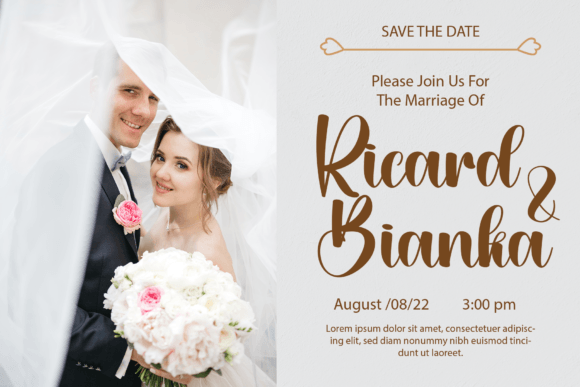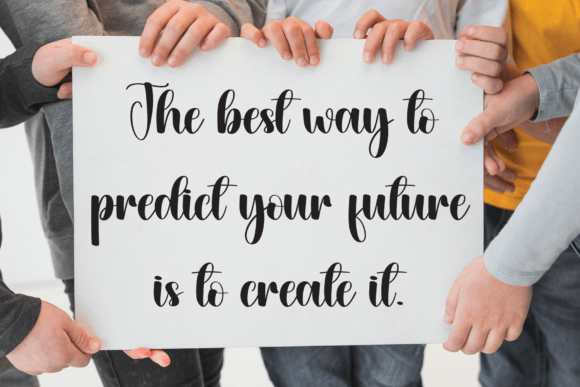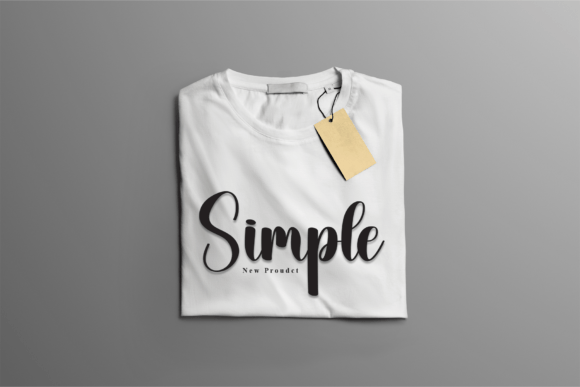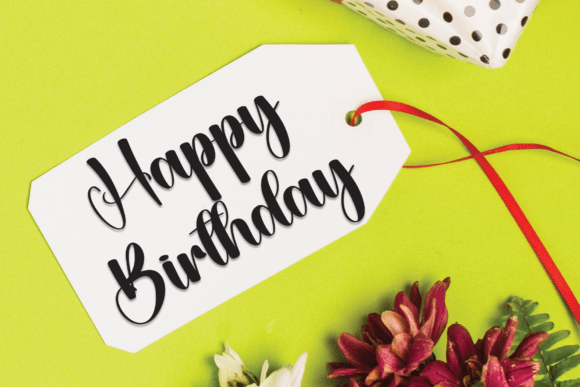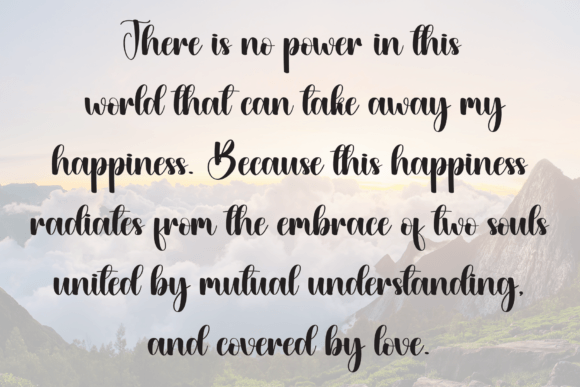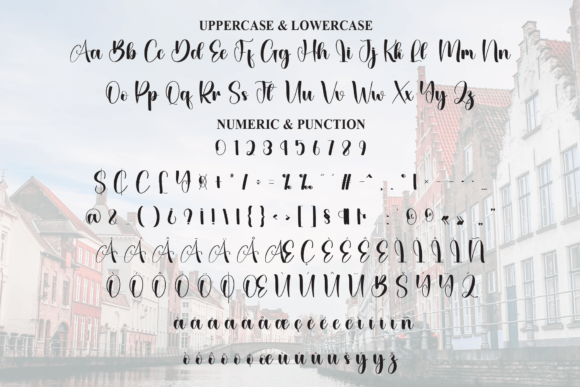
Introducing Amsterdam Font: Elevate Your Designs with a Bold Handwritten Script
Are you tired of using the same old fonts in your designs? Look no further than Amsterdam Font, a bold handwritten script font that’s taking the design world by storm. With its stylish and modern feel, Amsterdam Font is perfect for designers and crafters looking to add a touch of personality and charm to their projects.
What is Amsterdam Font?
Amsterdam Font is a bold handwritten script font that features smooth, flowing lines and a touch of elegance. Its modern feel makes it perfect for a wide range of design applications, from logos and invitations to social media graphics and more. Whether you’re a professional designer or a crafty DIY enthusiast, Amsterdam Font is sure to become a go-to in your font collection.
Key Features of Amsterdam Font
- Bold and stylish: Amsterdam Font is a bold and stylish font that’s sure to make a statement in any design.
- Smooth, flowing lines: The font features smooth, flowing lines that give it a modern and elegant feel.
- Perfect for logos and branding: Amsterdam Font is perfect for creating unique and memorable logos and branding materials.
- Great for invitations and social media: The font is also great for creating eye-catching invitations and social media graphics.
- Elegant and charming: Amsterdam Font adds a touch of elegance and charm to any project, making it perfect for designers and crafters who want to create something special.
Why Choose Amsterdam Font?
So why choose Amsterdam Font over other fonts on the market? Here are just a few reasons:
- Unique and memorable: Amsterdam Font is a unique and memorable font that’s sure to help your designs stand out from the crowd.
- Versatile: The font is versatile and can be used in a wide range of design applications, from logos and branding to invitations and social media graphics.
- Easy to read: Despite its bold and stylish nature, Amsterdam Font is easy to read, making it perfect for designs that require a clear and concise message.
- High-quality: Amsterdam Font is a high-quality font that’s been carefully crafted to ensure that it looks great in any design.
How to Use Amsterdam Font in Your Designs
Using Amsterdam Font in your designs is easy. Here are a few tips to get you started:
- Use it as a headline font: Amsterdam Font is perfect for use as a headline font, where its bold and stylish nature can really make an impact.
- Pair it with other fonts: Amsterdam Font can be paired with other fonts to create a unique and interesting design.
- Experiment with different colors: Amsterdam Font looks great in a wide range of colors, so don’t be afraid to experiment and find the perfect color for your design.
Tips and Tricks for Working with Amsterdam Font
Here are a few tips and tricks for working with Amsterdam Font:
- Use it sparingly: Amsterdam Font is a bold and stylish font, so it’s best to use it sparingly to avoid overwhelming your design.
- Pay attention to spacing: Make sure to pay attention to the spacing between letters and words to ensure that your design looks clean and professional.
- Experiment with different sizes: Amsterdam Font looks great in a wide range of sizes, so don’t be afraid to experiment and find the perfect size for your design.
Amsterdam Font is a bold handwritten script font that’s perfect for designers and crafters looking to add a touch of personality and charm to their projects. With its smooth, flowing lines and modern feel, Amsterdam Font is sure to become a go-to in your font collection. Whether you’re creating logos, invitations, or social media graphics, Amsterdam Font is the perfect choice.